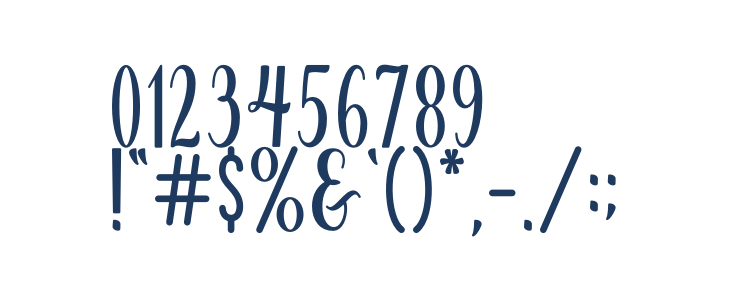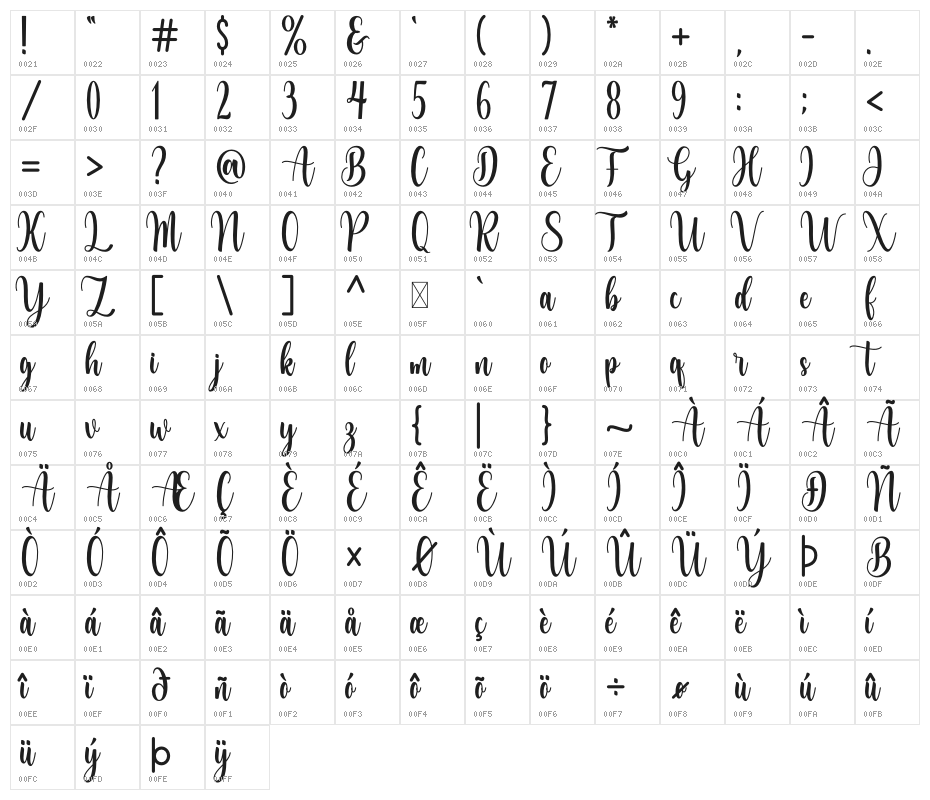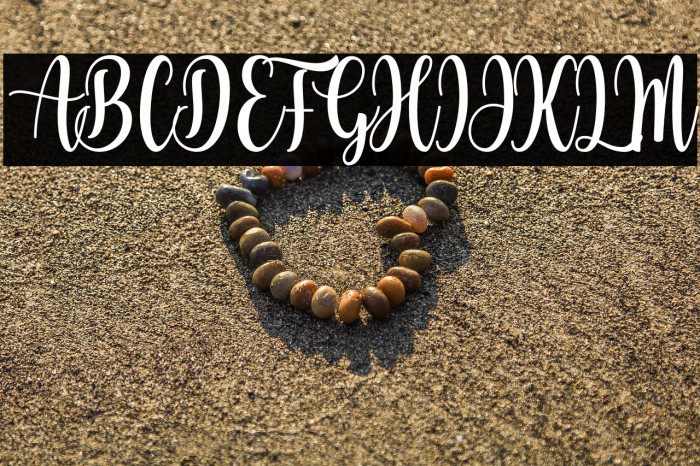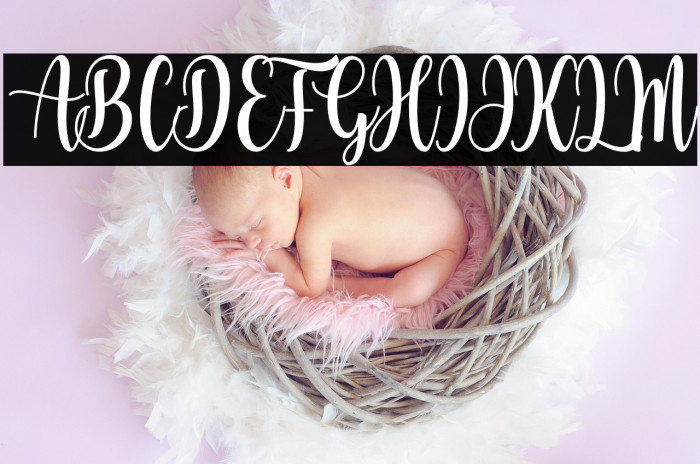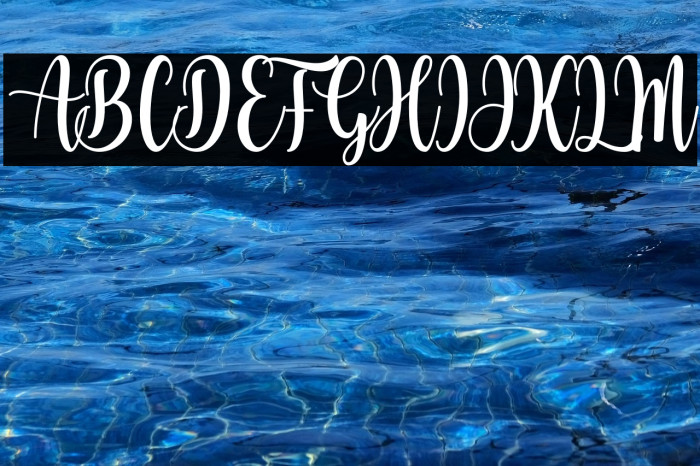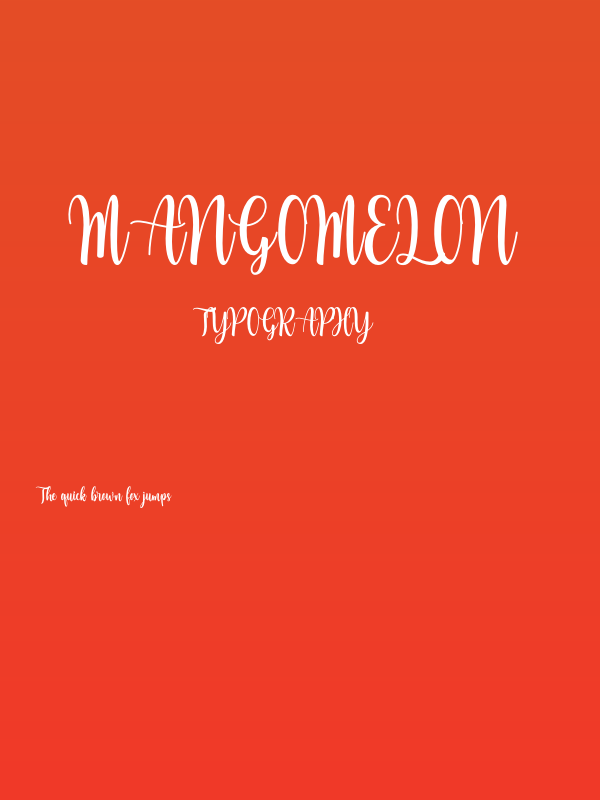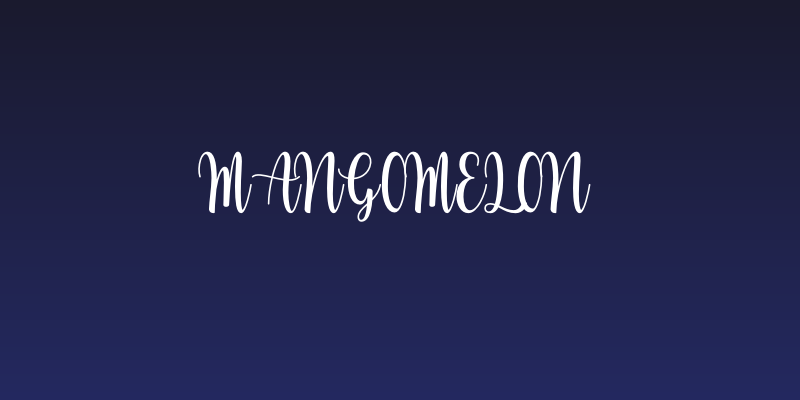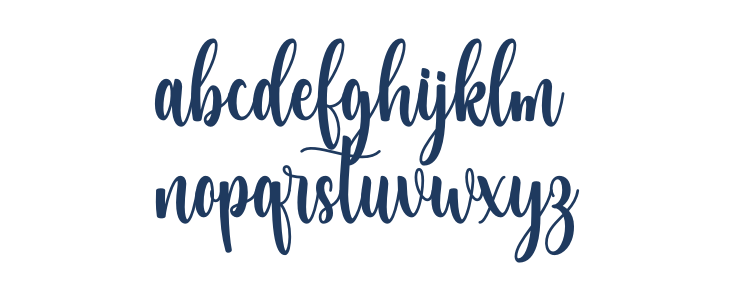
Mangomelon Font
Mangomelon Description
This font features a playful and elegant script style with a handwritten appearance. The uppercase letters are characterized by their flowing, cursive forms, while the lowercase letters maintain a consistent, smooth stroke. The numerals are bold and slightly elongated, adding a touch of whimsy. Special characters are creatively integrated, maintaining the overall aesthetic. The font's design is both artistic and legible, making it suitable for a variety of creative projects.